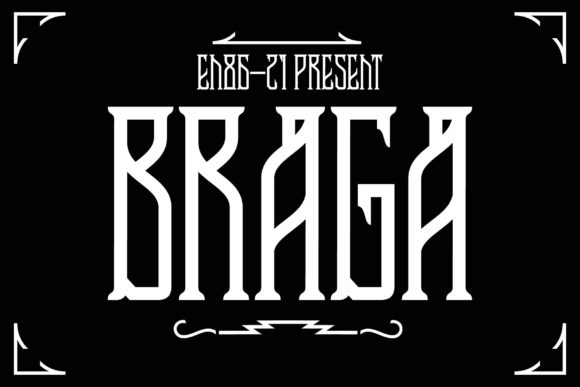
Braga Font
Welcome to the world of Braga Font, a display font that exudes elegance and sophistication. This masterpiece, meticulously crafted by EN86-21, draws inspiration from timeless letterforms, resulting in a font that effortlessly elevates your designs. Whether you're creating captivating headlines or eye-catching logos, Braga Font is your perfect companion.
Immerse yourself in the world of Braga Font, a display font that captivates and commands attention. Inspired by the enduring beauty of classic letter shapes, Braga Font brings a touch of timeless charm to your designs. Its bold appearance exudes strength and confidence, making it the perfect choice for creating impactful headlines, logos, and branding materials.
Unleash your creativity with Braga Font, a display font that knows no bounds. Its versatile nature allows you to explore a wide range of design possibilities, from elegant wedding invitations to bold marketing campaigns. Braga Font effortlessly adapts to your vision, adding a touch of sophistication and style to any project.
Embrace the beauty of Braga Font, a display font that speaks volumes. Its carefully crafted characters evoke emotions and convey messages with unparalleled clarity. Whether you're crafting heartfelt invitations or making a bold statement in your marketing materials, Braga Font ensures your words resonate with your audience.
Explore the limitless possibilities of Braga Font and elevate your designs to new heights. Its timeless appeal and versatility make it a must-have for any designer seeking to create captivating and memorable visual experiences. Let Braga Font be your creative companion, guiding you towards design excellence.